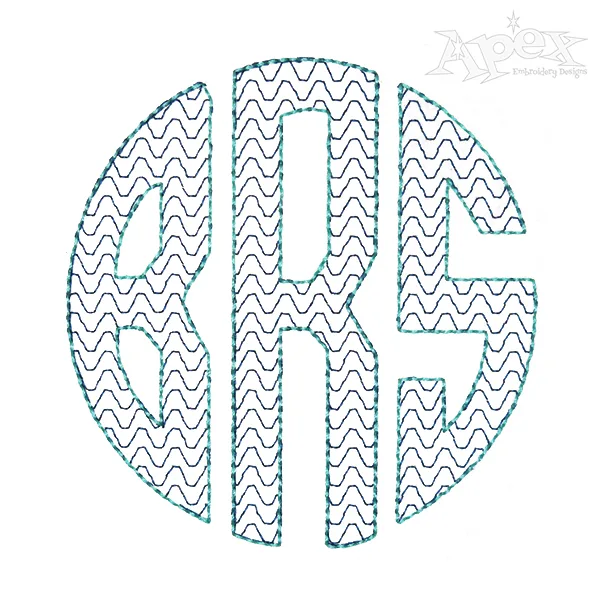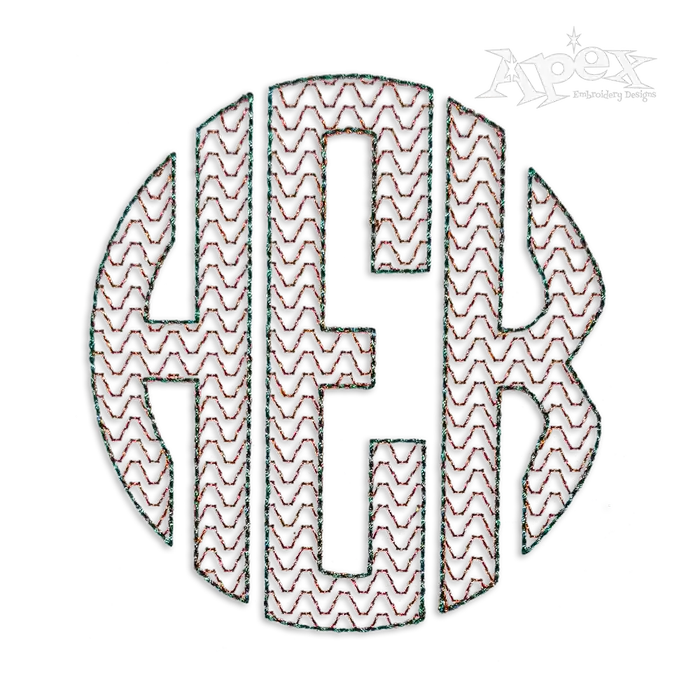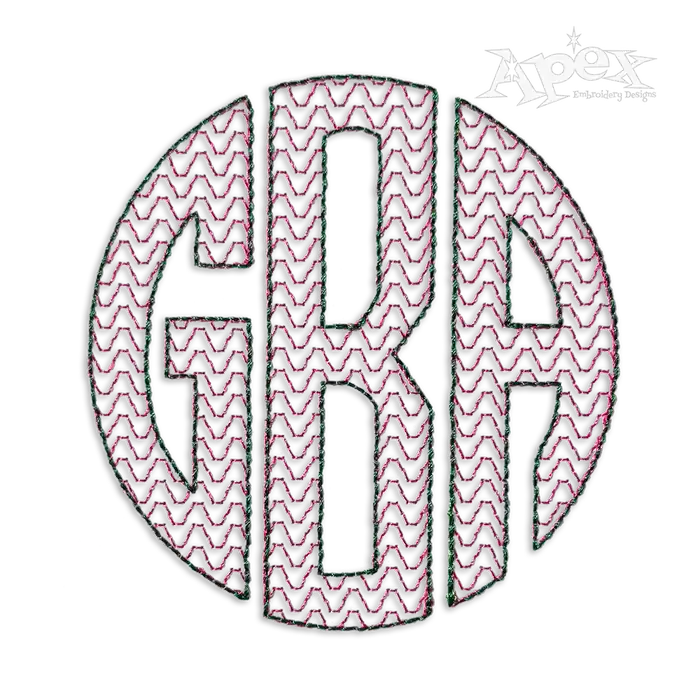
Sketch Wave Circle Monogram Embroidery Font
Born from the rhythmic beauty of ocean swells and coastal breezes, the Sketch Wave Circle Monogram Embroidery Font reimagines classic tailored typography through an airy, modern lens. When digitizing this collection, our focus was on capturing the effortless movement of maritime waters without sacrificing the crisp architecture of a traditional three-letter circle monogram. The dual-color execution pairs delicate sketch-style fills with clean contour stitching, letting your chosen fabric peek through to create a breathable, sun-drenched aesthetic perfect for custom monogramming and relaxed luxury styling.
Project Ideas for Sketch Wave Circle Monogram Embroidery Font
The open-stitch wave motif and circular silhouette bring effortless sophistication to both leisure essentials and home sanctuaries:
- Bespoke Resort Wear: Stitch onto airy linen shirts, sundress pockets, or light chambray cover-ups for an upscale seaside holiday wardrobe.
- Luxury Table Linens: Elevate pure flax or washed cotton cocktail napkins and dinner placemats for coastal dinner parties and outdoor celebrations.
- Heavy Canvas Totes & Duffles: Add a personalized, nautical-inspired monogram to sturdy boat totes, gym bags, and weekenders.
- Boutique Bridal & Hostess Gifting: Create memorable wedding weekend keepsakes by monogramming waffle spa robes, travel pouches, and plush poolside towels.
- Heirloom Nursery Accents: Embroider organic cotton swaddles and keepsake blankets with a soft, breathable touch that stays gentle against delicate skin.
Because the circular frame inherently balances negative and positive space, it offers exceptional placement flexibility across soft goods and structured apparel:
- Left Chest & Pockets: Center the 2-inch or 3-inch monogram directly over the pocket line or traditional left chest area of casual button-downs and polo shirts.
- Cocktail Napkin Corners: Position along a 45-degree diagonal angle approximately 1.5 inches from the corner hem for tailored dining sophistication.
- Canvas Bag Frontage: Center the 4-inch motif squarely between tote handles to create an eye-catching focal medallion.
- Cuff & Hemline Accents: Utilize the 2-inch format just above sleeve cuffs or near garment side-slits for an understated, bespoke detail.
Sketch Wave Circle Monogram Embroidery Font Craft & Letterform Details
The magic of this monogram lies in the dialogue between structured geometry and organic motion. Unlike dense satin fonts that can leave heavy, bulletproof medallions on lightweight fabrics, this design uses a masterfully digitized open-sketch fill. Layered running stitches weave back and forth in fluid, rhythmic undulations, mimicking tidal patterns while keeping the needle penetrations gentle on fine linens and breathable weaves.
We constructed the letterforms with a harmonious two-color palette in mind. The gentle interior wave lines create depth and movement, while the outer contour stitches provide crisp containment, ensuring that the monogram reads distinctly from across the room. Every sweeping curve of the flanking side initials has been manually calibrated to nest gracefully alongside the commanding center letter, delivering a balanced, circular silhouette that honors the heritage of fine monogramming while embracing modern coastal living.